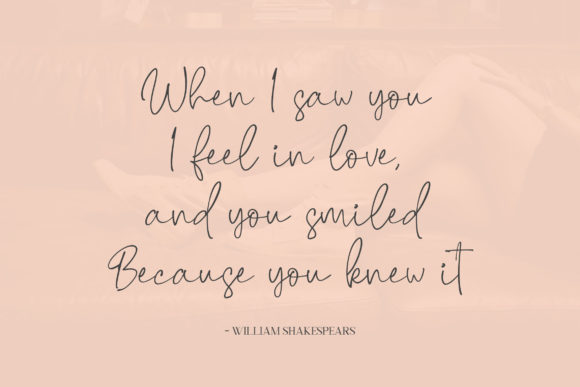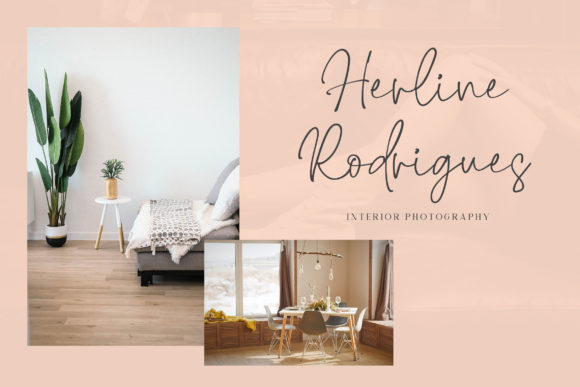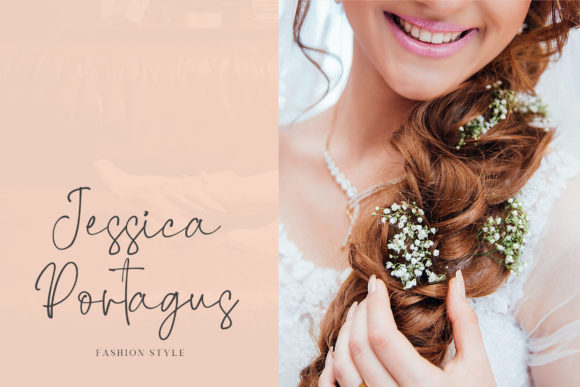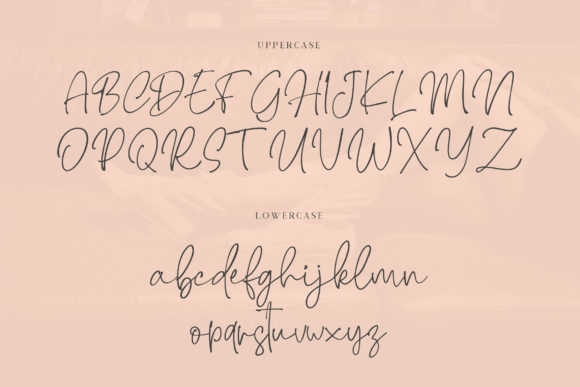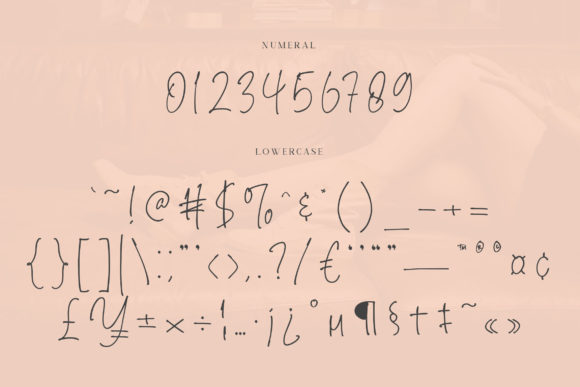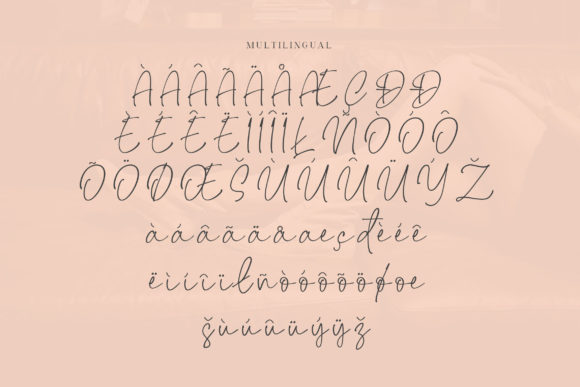
Discover the Elegance of Brendria Font: Elevate Your Designs with a Touch of Sophistication
Are you on the hunt for a font that exudes elegance, sophistication, and a dash of modern flair? Look no further than Brendria Font. This stunning, handwritten typeface is designed to bring a touch of class and refinement to your projects, making it perfect for designers and crafters seeking to elevate their work.
The Essence of Brendria: A Flowing and Relaxed Handwritten Font
Brendria is a flowing and relaxed handwritten font that seamlessly blends traditional calligraphic influences with a contemporary twist. Its unique design ensures that it maintains a classy, sophisticated feel while still feeling fresh and modern. This versatile font is ideal for a wide range of applications, from elegant branding and advertising to beautiful stationery and craft projects.
Unleash Your Creativity with Brendria’s Unique Characteristics
So, what sets Brendria apart from other fonts? Here are a few key characteristics that make it a standout choice for designers and crafters:
- Flowing and Relaxed: Brendria’s handwritten design features smooth, flowing lines that give it a relaxed, effortless feel. This makes it perfect for creating elegant, sophisticated designs that still feel approachable and friendly.
- Classy Calligraphic Influences: Brendria’s roots in traditional calligraphy are evident in its elegant letterforms and refined lines. This adds a touch of sophistication and luxury to any design.
- Contemporary and Fresh: Despite its classic influences, Brendria has a distinctly modern feel. Its clean lines, subtle curves, and balanced proportions ensure that it feels fresh and relevant.
Why Fall in Love with Brendria?
With Brendria Font, you can bring your projects to the highest levels with ease. Here are just a few reasons why designers and crafters are falling in love with this stunning typeface:
- Elevate Your Branding: Use Brendria to create elegant, sophisticated branding that sets your business apart from the competition.
- Add a Touch of Elegance to Your Crafts: Whether you’re creating handmade cards, gift tags, or other paper crafts, Brendria is the perfect choice for adding a touch of refinement and luxury.
- Stand Out with Unique Designs: With Brendria’s unique blend of traditional and modern influences, you can create designs that are truly one-of-a-kind.
In conclusion, Brendria Font is a stunning, handwritten typeface that offers the perfect blend of elegance, sophistication, and modern flair. With its flowing and relaxed design, classy calligraphic influences, and contemporary feel, it’s the ideal choice for designers and crafters seeking to elevate their work. So why wait? Fall in love with Brendria and bring your projects to the highest levels with this beautiful, versatile font.